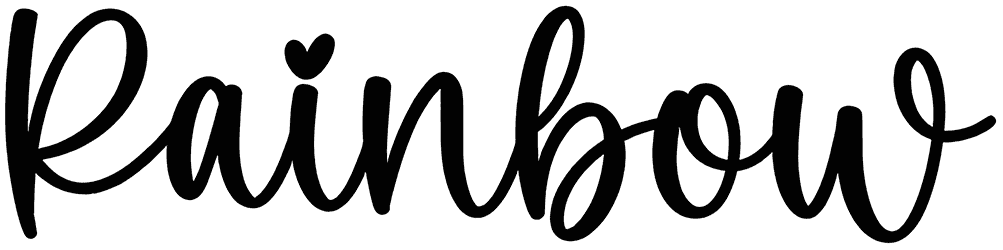
Rainbow Font
All your Valentine’s postcard needs to become delightful is a lovely Valentine’s Day font like this option. The letters of this cursive font are modern, soft, and sweet. Rainbow font, with its great coverage of characters, will give you a nice chance to use it for your intended creative projects and make them stunning.